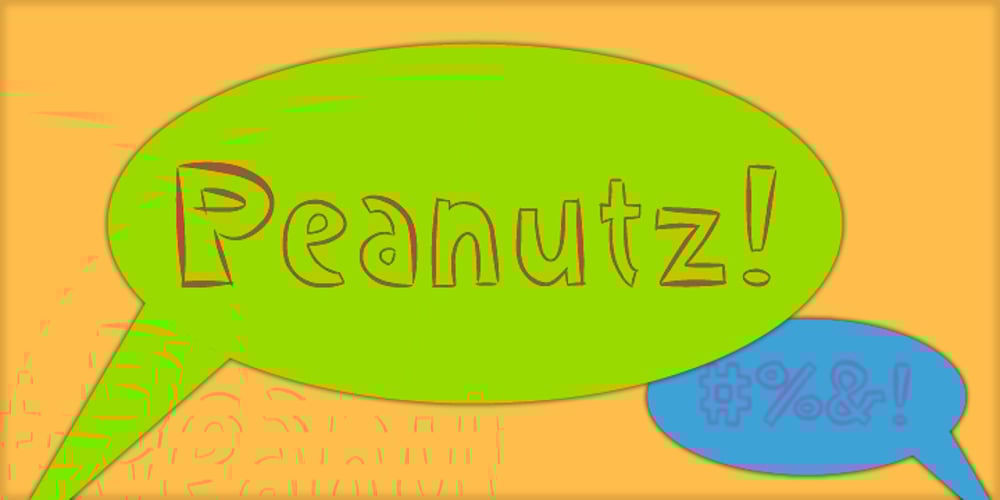
Peanutz
Peanutz font
Peanutz Font Family was designed by Matthias Luh and published by Matthias Luh. Peanutz contains 2 styles and family package options. A cool font which is a bit like a comic font. It makes me remind of graffiti.